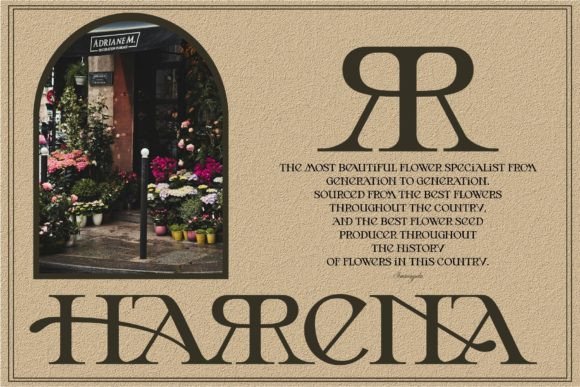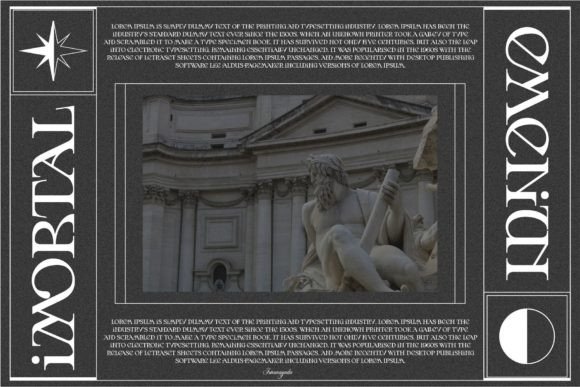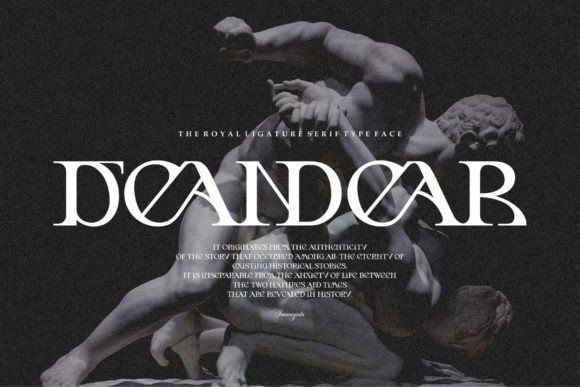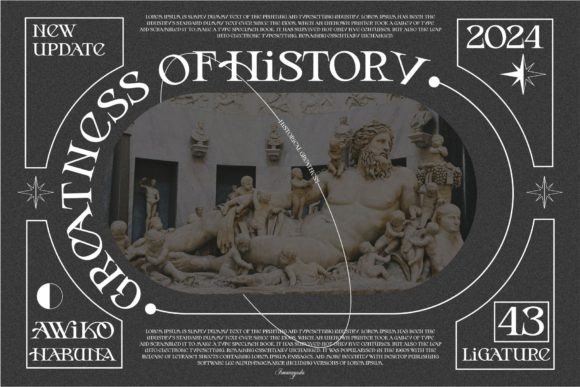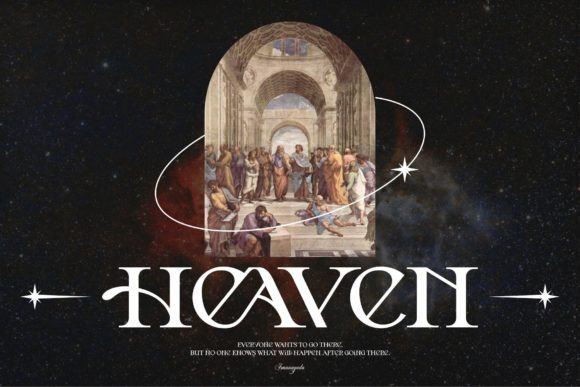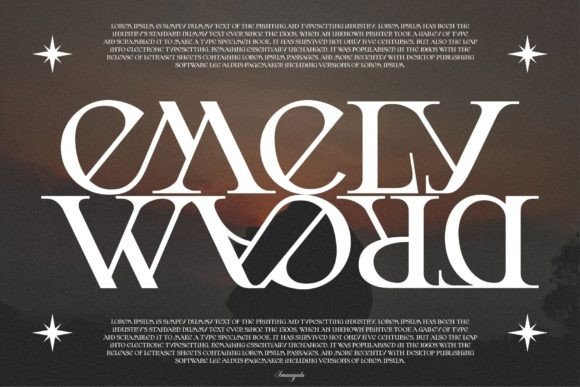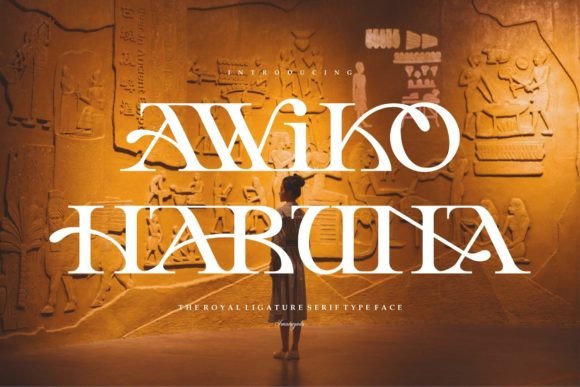
The Designer’s Delight: Awiko Haruna Font
I’ll never forget the time I was working on a project for a client who wanted a unique font to match their brand’s quirky personality. I spent hours scouring the internet for the perfect font, but nothing seemed to fit. That was until I stumbled upon Awiko Haruna Font. It was love at first sight! 💕
Awiko Haruna is a special kind of font designed for all sorts of displays. Whether you’re using it online or elsewhere, it fits perfectly with any design you have in mind. In this article, I’ll share my experience with Awiko Haruna, its features, and how to make the most of it in your designs.
- ✨ Unique Character: Awiko Haruna has a distinct personality that sets it apart from other fonts.
- ✅ Versatility: It works well in various design contexts, from digital displays to print materials.
- 💡 Innovative Design: The font’s design is carefully crafted to provide a fresh and modern look.
While Awiko Haruna is an excellent font, it’s not perfect. Here are a few things to keep in mind:
- ⚠️ Limited Language Support: Awiko Haruna may not support all languages, so be sure to check its capabilities before using it for a project.
- 🤔 Glyph Overload: With so many glyphs and stylistic alternates, it can be overwhelming to navigate. Take some time to explore the font’s features to get the most out of it.
Awiko Haruna was designed with the goal of creating a unique and versatile font that could be used in a variety of design contexts. The font’s creator drew inspiration from modern design trends and a passion for innovative typography.
| Font Name | Awiko Haruna Font |
| Author | ismanayuda |
Q: What is Awiko Haruna font?
A: Awiko Haruna is a special kind of font designed for all sorts of displays.